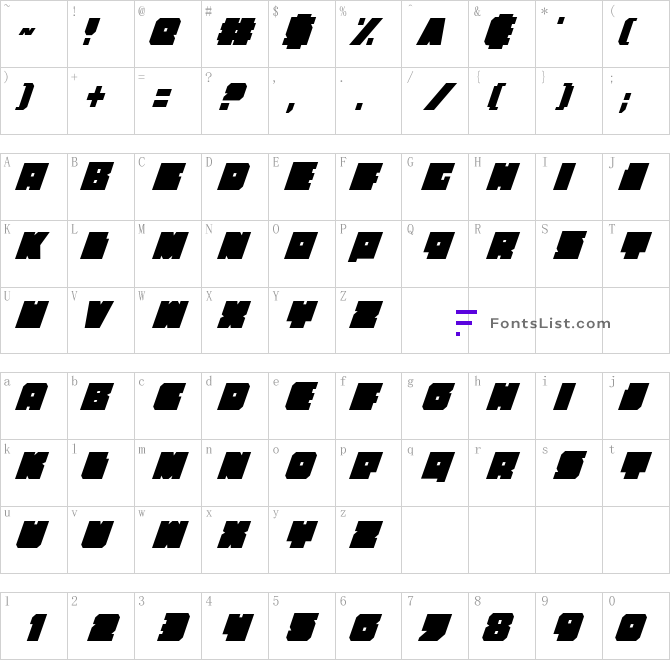
- Font Name:Anakefka Condensed Italic
Anakefka-Condensed-Italic.ttf is a very beautiful artistic font, Anakefka-Condensed-Italic.ttf is widely used in the design and printing of various books and pictures,Anakefka-Condensed-Italic.ttf has a strong visual impact,Anakefka-Condensed-Italic.ttf is a commonly used font in newspapers, magazines and books, and is used in posters, e-commerce Poster design, store design, logo design, font design and other fields.Anakefka-Condensed-Italic.